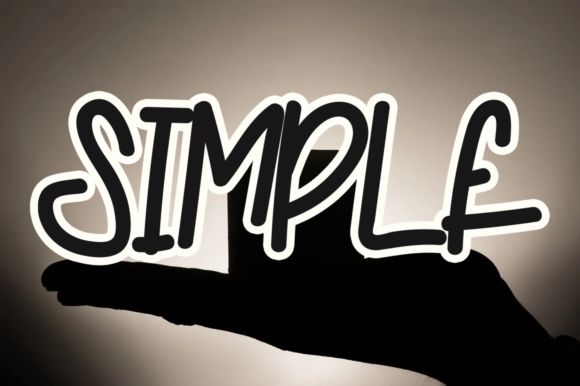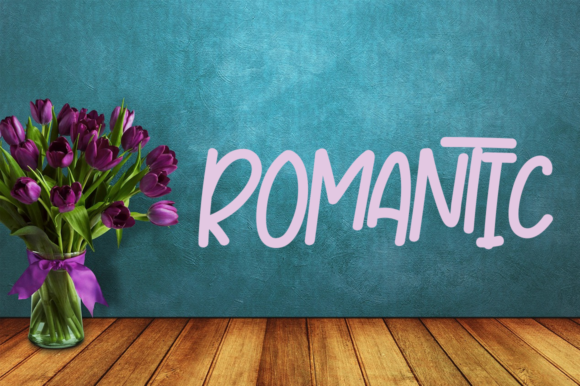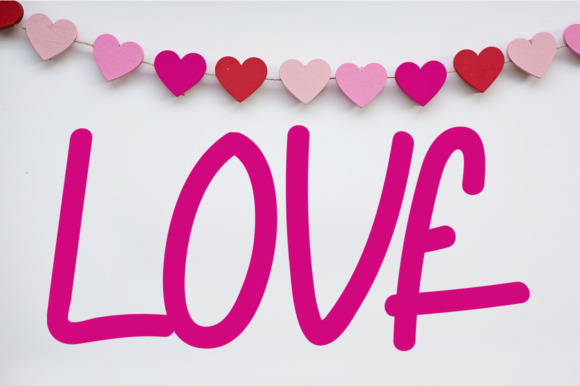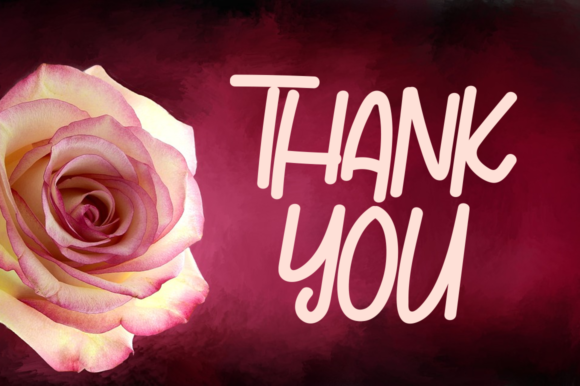
The Birth of a Beautiful Font: A Designer’s Delight
I’ll never forget the time I was working on a project for a client’s birthday party invitation. I had the design concept all sorted out, but I was stuck on finding the perfect font. I scrolled through page after page of Google Fonts, but nothing seemed quite right. That was until I stumbled upon Birthday People – a relaxed and natural handwritten font that instantly elevated my design.
An Honest Review of Birthday People
- ✨ Simple yet impactful: Birthday People is a beautifully simple font that packs a strong visual punch. It’s perfect for making your creations stand out from the crowd.
- ✅ Easy to read: The font is incredibly legible, even at smaller sizes, making it perfect for body text or headings.
- 💕 Warm and inviting: The natural, handwritten feel of Birthday People gives it a warm and welcoming personality that’s perfect for projects that need a personal touch.
While Birthday People is an amazing font, it’s not without its quirks. Here are a few things to keep in mind:
- 🤔 Limited character set: While the font has a wide range of characters, it may not have every special character or glyph you need. Be sure to check the font’s capabilities before committing to a project.
- ⚠️ Not suitable for very small text: While Birthday People is generally easy to read, it may not be the best choice for very small text (e.g., footnotes or captions). Keep the font size in mind when selecting it for your project.
One of the best things about Birthday People is its support for OpenType features and glyphs. Here are a few tips for getting the most out of these features:
- Stylistic alternates: Birthday People has a range of stylistic alternates that can add visual interest to your text. Experiment with different alternates to find the one that works best for your design.
- Glyphs: The font also includes a range of glyphs, from simple shapes to more complex icons. Use these glyphs to add visual elements to your design and make it more engaging.
The Story Behind Birthday People
While the true story behind Birthday People may be a mystery, it’s easy to imagine that it was created by a designer who loves celebrating special occasions. Perhaps they wanted to create a font that would make birthday parties and other celebrations feel more personal and special. Whatever the inspiration, Birthday People is a font that’s sure to bring a smile to your face.
| Font Name | Birthday People Font |
| Author | Garcio |
Q: What is the personality of Birthday People?
A: Birthday People is a relaxed and natural handwritten font with a warm and inviting personality.
Q: Is Birthday People suitable for body text?
A: Yes, Birthday People is easy to read and can be used for body text, but it may not be the best choice for very small text.
Q: Does Birthday People support OpenType features?
A: Yes, Birthday People supports OpenType features, including stylistic alternates and glyphs.